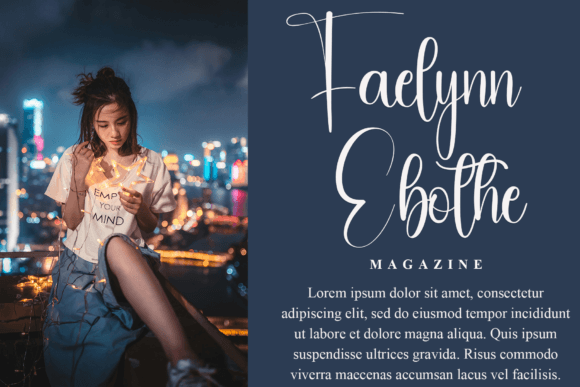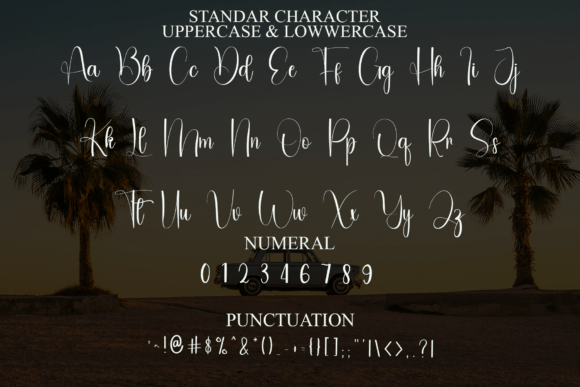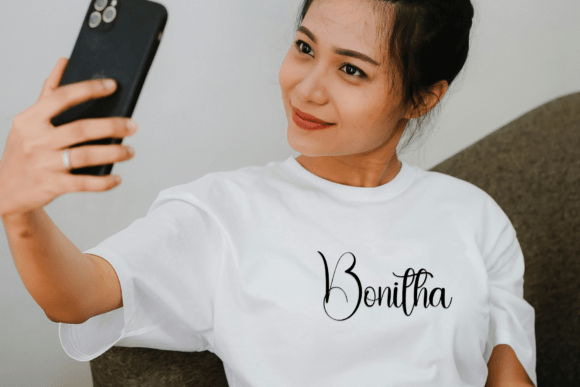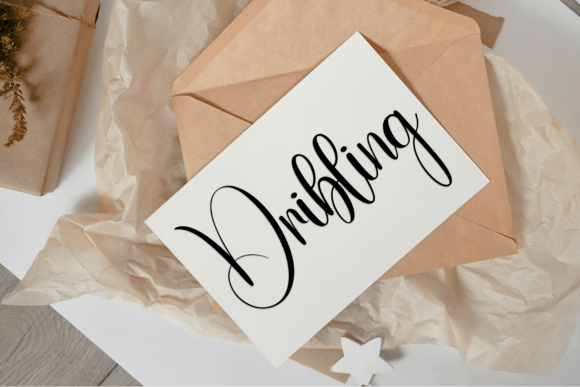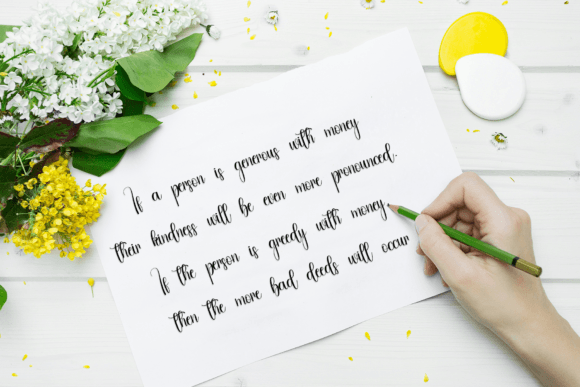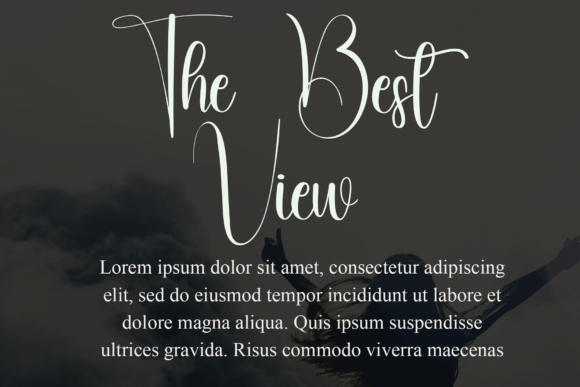
Get Ready to Deck the Halls with the Bestine Font
It’s that time of the year when creativity knows no bounds, and the world is filled with festive cheer. You’re rummaging through your stash of decorations, carefully selecting the perfect ornaments, and planning a holiday party that will be remembered for years to come. And, of course, no celebration is complete without the perfect greeting cards, gift labels, and other holiday-themed projects.
This is where the Bestine Font comes in – a delightful, festive typeface that captures the essence of the holiday season. With its beautiful decorative elements and unique flair, the Bestine Font adds a touch of charm to your designs, making it a valuable addition to any designer’s toolkit. Whether you’re a professional graphic designer or a DIY enthusiast, this font is sure to bring a cheerful and nostalgic atmosphere to your words.
Bestine Font Key Features
- Unique Characteristics: Bestine Font features a unique blend of modern and vintage elements, with intricate details and ornate flourishes
- Language Support: Multilingual support for over 100 languages, including Latin, Cyrillic, and Greek scripts
- Style Variations: Includes 6 styles: Regular, Bold, Italic, Bold Italic, Outline, and Shadow
Designer Review: Bestine Font
Overall, I’d say that Bestine Font has some great qualities, but also a few areas where it falls short.
- Unique and stylish design: Bestine Font has a distinctive look that can add a touch of elegance to any project.
- Good legibility: Despite its stylish appearance, the font is still easy to read, making it suitable for a wide range of applications.
- High-quality glyphs: The font includes a wide range of glyphs, including a variety of international characters and symbols.
- Some characters may not be compatible with all operating systems: I noticed that a few characters didn’t display correctly on Windows, which could be a problem for some users.
- Limited font weights and styles: Bestine Font only comes in a few different weights and styles, which may limit its versatility in certain projects.
- No extensive language support: While the font includes some international characters, it may not be suitable for projects that require extensive language support.
Overall, I think Bestine Font is a solid choice for designers who want a stylish and legible font for a specific project. However, it may not be the best option for more complex projects that require a wide range of font weights, styles, and language support.
Tips for Getting the Most Out of Bestine Font
Here are some tips to help you get the most out of Bestine Font:
- Experiment with different font sizes and styles to find the perfect look for your project.
- Combine Bestine Font with other fonts to create a unique and visually appealing design.
- Use Bestine Font for headings and titles to add emphasis and create a clear hierarchy of information.
Bestine Font is a versatile font that can be used in a variety of projects, including:
Great Vibes is a modern script font ideal for creative, artistic, and whimsical designs. It features a playful, handwritten feel. When to use: Fashion, beauty, and lifestyle brands, as well as creative and artistic projects.
Comparison to Bestine Font: Great Vibes has a more modern and playful feel compared to Bestine Font’s vintage vibe. Great Vibes is better suited for creative and artistic projects, while Bestine Font is ideal for more classic and elegant designs.
Didot is a luxurious serif font perfect for high-end branding, fashion, and luxury goods. It features a classic, sophisticated feel. When to use: Luxury brands, high-end fashion, and formal events.
Is the Bestine Font compatible with non-Latin scripts?
The Bestine Font includes support for multiple languages, including Latin, Cyrillic, and Greek scripts. However, compatibility with non-Latin scripts may vary depending on the specific language and script requirements. It is recommended to test the font with your specific use case before using it in production.